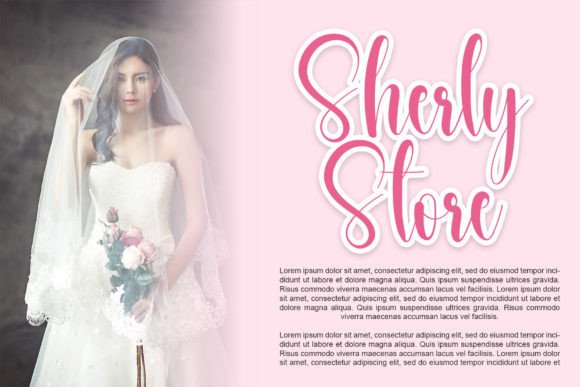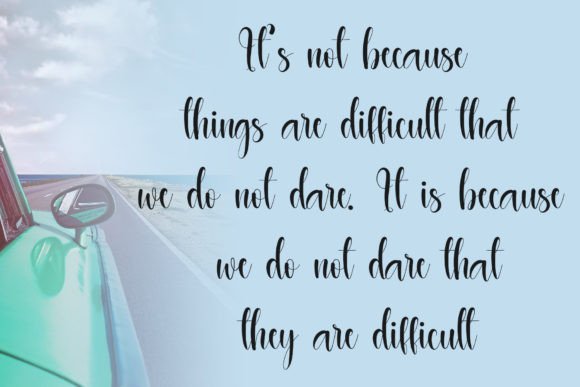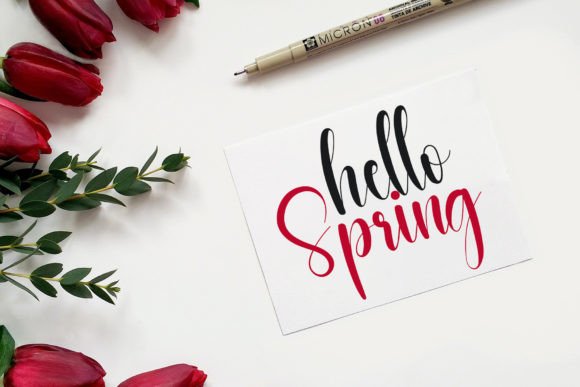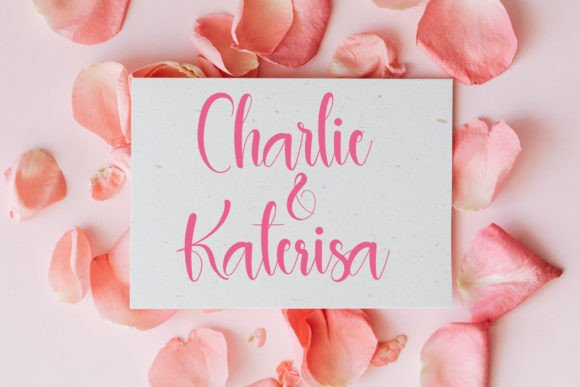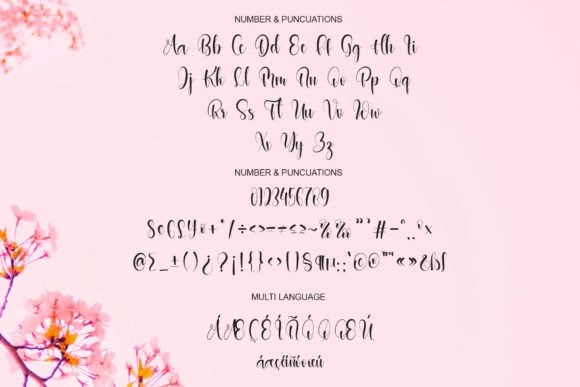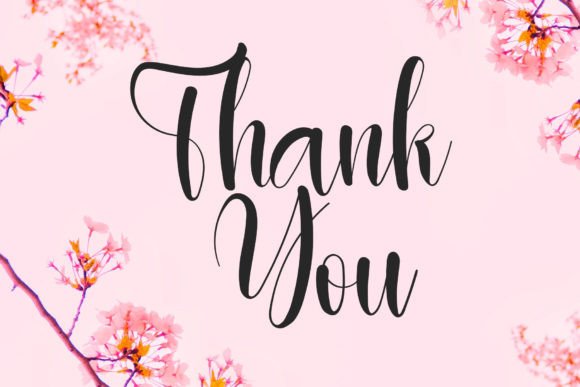
Hearly Signature Font: Elevate Your Designs with Elegance
In the world of typography, a well-crafted font can make all the difference in bringing a design to life. For designers and crafters seeking to add a touch of sophistication and whimsy to their creations, the Hearly Signature Font is an exceptional choice. This delicate, elegant, and flowing handwritten font is designed to inspire and elevate your most creative ideas.
The Beauty of Hearly Signature Font
Hearly Signature Font stands out with its beautiful and well-balanced characters, making it a versatile addition to a wide range of design projects. Its elegant flow and delicate strokes bring a sense of refinement and luxury, perfect for designs that require a touch of sophistication. Whether you’re working on a branding project, crafting invitations, or creating digital content, Hearly Signature Font is sure to make your designs come alive.
Key Features of Hearly Signature Font
- Delicate and Elegant: Hearly Signature Font boasts a delicate and elegant appearance, making it ideal for designs that require a touch of refinement.
- Flowing Handwritten Style: The font’s flowing handwritten style adds a personal and whimsical touch to any design.
- Well-Balanced Characters: Each character in the Hearly Signature Font is carefully crafted to ensure balance and harmony, making it easy to read and visually appealing.
- Versatile: Its elegant and flowing design makes it suitable for a wide pool of designs, from luxury brands to creative crafts.
Uses of Hearly Signature Font
The versatility of Hearly Signature Font makes it an excellent choice for various design projects, including:
- Branding and Logos: Add a touch of elegance and sophistication to your brand’s identity.
- Stationery and Invitations: Create beautiful and personalized stationery, invitations, and greeting cards.
- Digital Content: Enhance your blog posts, social media graphics, and website content with a touch of whimsy and elegance.
- Crafts and DIY Projects: Perfect for crafters, this font can be used in various DIY projects, such as handmade cards, scrapbooking, and more.
Why Choose Hearly Signature Font?
In a world where design trends are constantly evolving, having a unique and versatile font like Hearly Signature can set your designs apart. Here are a few reasons why designers and crafters choose Hearly Signature Font:
- Unique and Personal Touch: The font’s handwritten style adds a personal touch to your designs, making them stand out.
- Ease of Use: Hearly Signature Font is easy to integrate into your design projects, making it a convenient choice for designers of all levels.
- High-Quality Design: Crafted with attention to detail, this font is of high quality, ensuring it looks great in any design.
Hearly Signature Font is a beautiful, elegant, and versatile handwritten font that can elevate your designs to new heights. Its delicate and flowing style, combined with well-balanced characters, makes it an excellent choice for a wide range of design projects. Whether you’re a professional designer or a crafty DIY enthusiast, Hearly Signature Font is sure to inspire and bring your creative ideas to life. Add it to your collection today and discover the difference it can make in your designs.